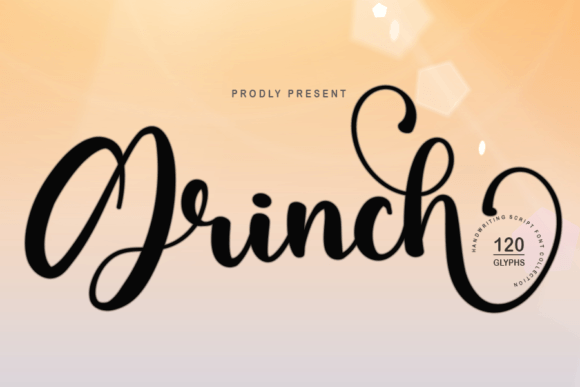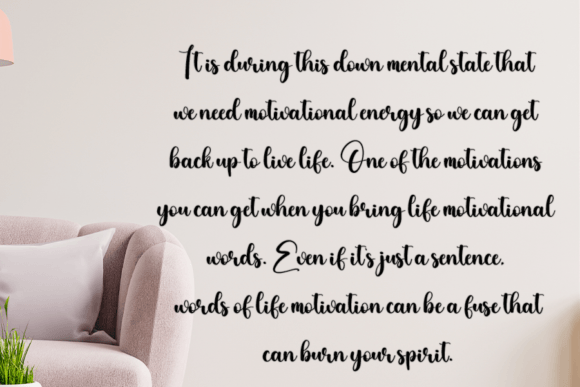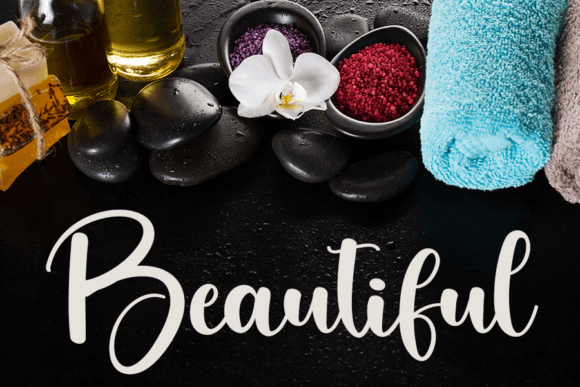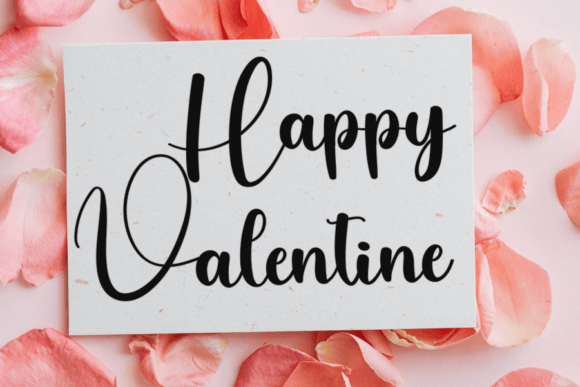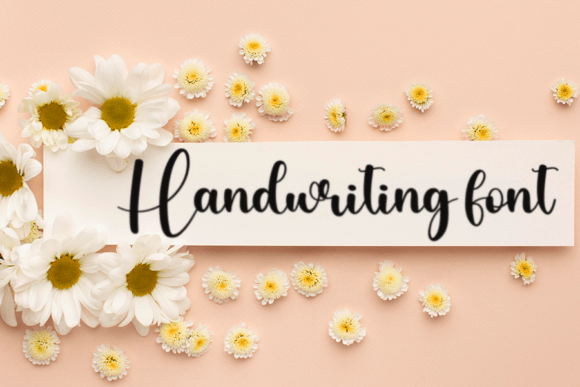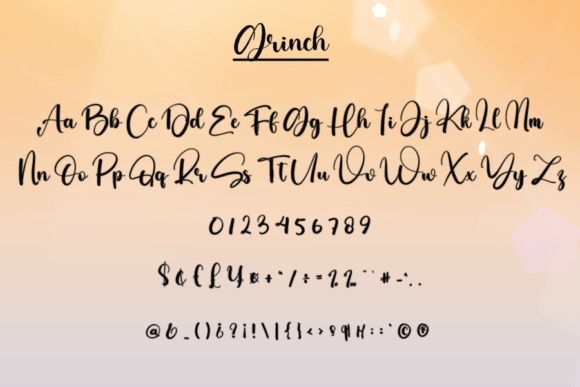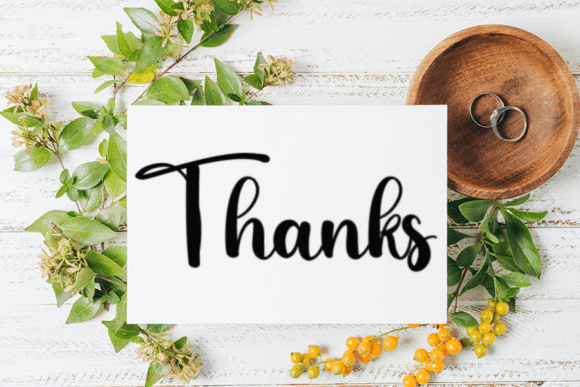
Grinch Font
What Is Grinch Font?
Grinch Font is a stylish handwritten script that fuses timeless classic calligraphy with a fresh, modern touch. Each letter features smooth, flowing curves and carefully balanced shapes, creating a refined look that’s both elegant and approachable. Whether you want to design something chic, sophisticated, or playful, Grinch offers a versatile style that enhances any project.
Its unique blend of traditional inspiration and contemporary flair makes it a must-have for designers seeking elegance and originality.
Grinch is perfect for a wide range of creative applications. For example, it works beautifully on wedding invitations and event stationery. The graceful letterforms set a romantic and polished tone that makes any celebration memorable.
Logos and branding projects stand out with Grinch’s distinctive, stylish look. From boutique brands and artisan products to modern businesses, this font helps you create a visual identity that feels upscale and personal.
Greeting cards, thank-you notes, and personal messages gain a warm, heartfelt feel when you use Grinch. Your words will look thoughtfully crafted and inviting.
Social media graphics, blog headers, and email campaigns shine with Grinch’s refined aesthetic. The elegant flow draws attention and gives your content a professional edge.
Even product packaging, labels, and custom merchandise look sophisticated and eye-catching with Grinch’s clean script.
Why Should You Choose Grinch Font?
One of Grinch’s greatest strengths is its readability. Despite its decorative flourishes and handwritten style, each letter stays clear and legible at all sizes. From small labels to big headlines, your text will always look polished and easy to read.
The font pairs seamlessly with minimalist serif or sans-serif typefaces, so you can build balanced, modern layouts effortlessly.
Designers appreciate that Grinch looks refined out of the box, delivering consistently beautiful results with minimal effort.
Grinch Font brings sophistication, warmth, and personality to any project. Its smooth strokes and balanced proportions create an emotional connection that helps your work feel genuine and professional.
Even minimalist layouts gain character and elegance with Grinch. Whether you’re designing a wedding suite, a luxury product label, or social media graphics, this font elevates your visuals with ease.
Using a premium handwritten script shows your dedication to thoughtful, high-quality design. Clients and customers will notice this attention to detail, helping you build trust and stand out in any market.
Grinch Font is more than just a beautiful script—it’s a versatile design tool that helps you communicate ideas with clarity, style, and sophistication. From weddings and branding to packaging and digital content, this font adapts seamlessly to any project and leaves a lasting impression.